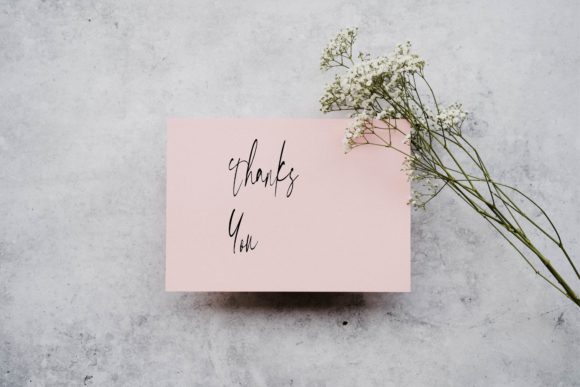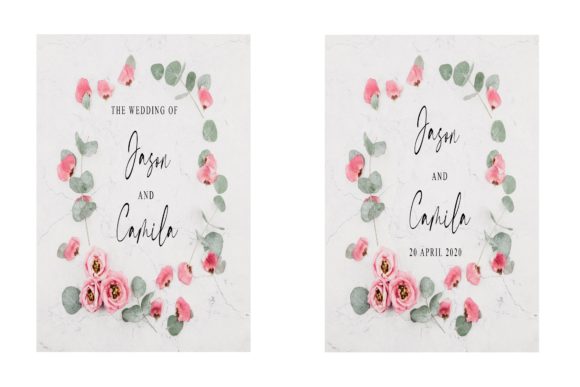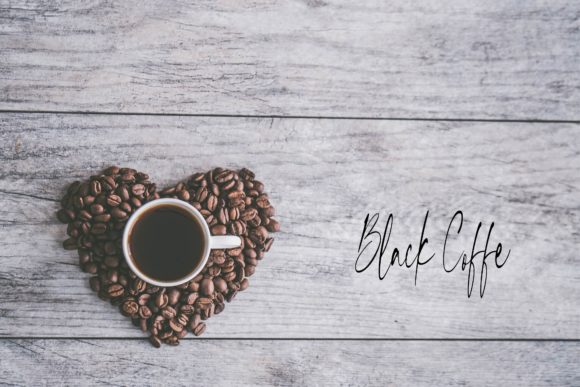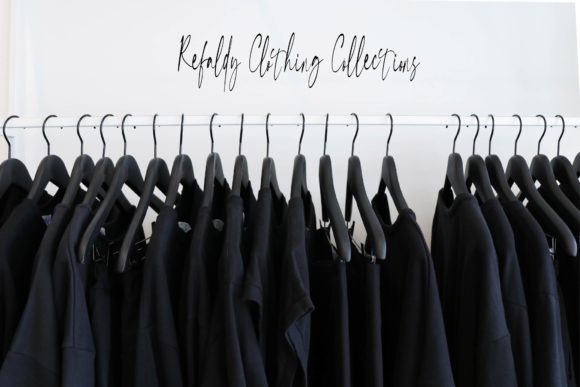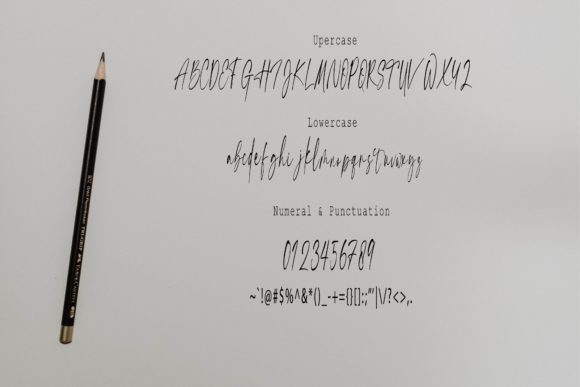
Introducing Handwash Font: Elevate Your Designs with Elegance and Class
In the world of typography, a well-crafted font can make all the difference in transforming a design from ordinary to extraordinary. For those seeking a beautiful and refreshing look, Handwash font is an exquisite choice. This lovely and delicate script font exudes elegance and class, making it perfect for designers and crafters looking to add a touch of sophistication to their projects.
The Beauty of Handwash Font
Handwash font is a meticulously crafted typeface that boasts a unique and captivating charm. Its delicate strokes and elegant curves evoke a sense of refinement and luxury, making it ideal for designs that require a high level of sophistication. Whether you’re working on a branding project, packaging design, or simply looking to add a personal touch to your digital creations, Handwash font is sure to impress.
Key Features of Handwash Font
- Elegant and Refined: Handwash font features delicate strokes and elegant curves, giving it a sophisticated and luxurious feel.
- Versatile: This font is perfect for a wide range of design projects, from branding and packaging to digital graphics and more.
- Beautiful and Refreshing: Handwash font adds a touch of elegance and class to any design, making it perfect for those seeking a unique and captivating look.
- Easy to Read: Despite its delicate nature, Handwash font is surprisingly easy to read, making it suitable for both headlines and body text.
Handwash font is a versatile typeface that caters to the needs of various designers and crafters. Whether you’re a:
- Graphic Designer: Looking for a unique and elegant font to add to your branding or packaging design projects.
- Digital Artist: Seeking a beautiful and refreshing font to use in your digital graphics or illustrations.
- Crafter: Wanting to add a personal touch to your handmade projects, such as stationery, cards, or scrapbooking.
Handwash font is the perfect choice. Its elegance and class will elevate your designs and add a touch of sophistication to your projects.
Tips for Using Handwash Font
To get the most out of Handwash font, here are a few tips to keep in mind:
- Pair with a Sans-Serif Font: Combine Handwash font with a clean sans-serif font to create a beautiful contrast and add visual interest to your design.
- Use for Headlines and Titles: Handwash font is perfect for headlines and titles, where its elegance and class can shine.
- Experiment with Colors: Try pairing Handwash font with different colors to create a unique and eye-catching look.
| Font Name | Handwash Font |
| Author | Agitfa Studio |
In conclusion, Handwash font is a stunning script font that exudes elegance and class. Its delicate strokes and elegant curves make it perfect for designers and crafters seeking a beautiful and refreshing look for their designs. With its versatility, ease of use, and captivating charm, Handwash font is sure to become a favorite in your typography collection.